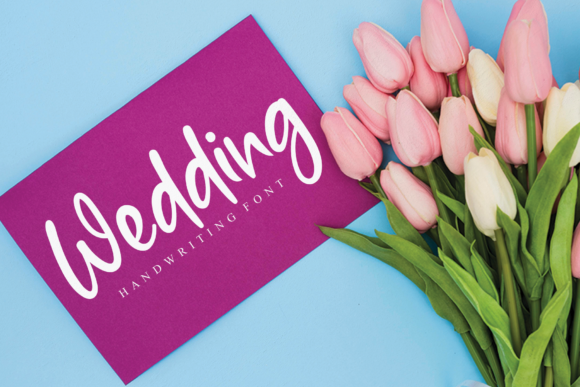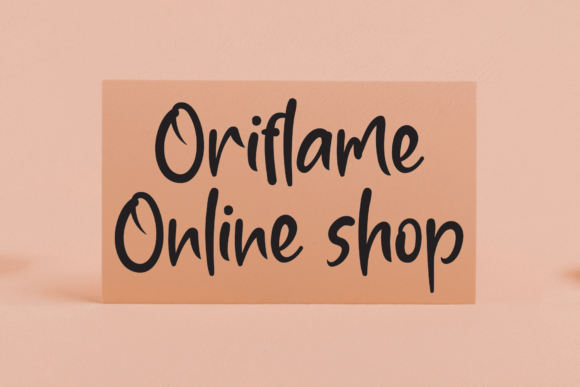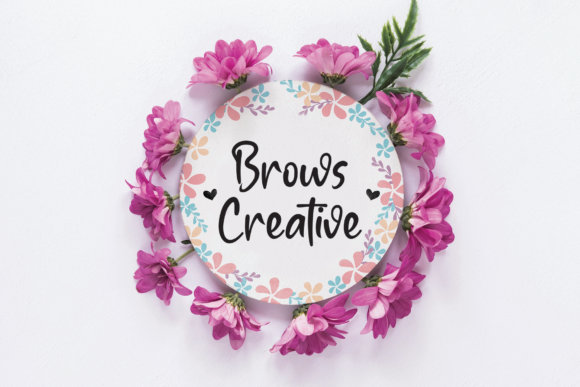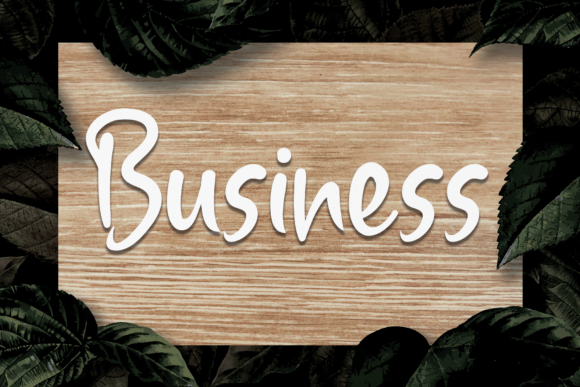
Christmas December Font: A Sweet and Round Lettered Handwritten Font
Are you looking for a font that can add a touch of warmth and coziness to your designs, especially during the holiday season? Look no further than the Christmas December Font. This sweet and round lettered handwritten font is perfect for designers and crafters who want to create beautiful and engaging projects.
What Makes Christmas December Font Special?
Christmas December Font is a unique and versatile font that was designed to enhance the beauty of your projects. Here are some of its key features:
- Balanced and Varied: This font is not too thin and not too thick, making it perfectly balanced and varied. This balance ensures that your text is easy to read and visually appealing.
- Sweet and Round Lettered: The font features sweet and round lettered designs that are sure to capture the hearts of your audience. The rounded edges give the font a friendly and approachable feel.
- Handwritten: The font has a handwritten feel that adds a personal touch to your designs. It’s perfect for creating holiday cards, invitations, and other festive materials.
Uses of Christmas December Font
Christmas December Font is a versatile font that can be used for a variety of design projects, including:
- Holiday Cards and Invitations: Create beautiful and festive holiday cards and invitations that will make your loved ones feel special.
- Christmas Decorations: Use the font to create stunning Christmas decorations, such as garlands, banners, and signs.
- Social Media Graphics: Add a touch of holiday cheer to your social media graphics, such as Facebook posts, Instagram stories, and Twitter headers.
- Digital Papers and Scrapbooking: Use the font to create digital papers and scrapbooking pages that are perfect for crafters and hobbyists.
Tips for Using Christmas December Font
Here are some tips for using Christmas December Font effectively:
- Pair it with Other Fonts: Experiment with pairing Christmas December Font with other fonts to create a unique and interesting look.
- Use it in Large and Small Sizes: The font is legible in both large and small sizes, making it perfect for headlines and body text.
- Add Colors and Patterns: Add some holiday cheer to your designs by using colors and patterns that match the Christmas theme.
Why Designers and Crafters Love Christmas December Font
Designers and crafters love Christmas December Font for several reasons:
- Easy to Read: The font is easy to read, making it perfect for body text and headlines.
- Versatile: The font can be used for a variety of design projects, from holiday cards to social media graphics.
- Unique: The font has a unique and distinctive look that sets it apart from other fonts.
Christmas December Font is a sweet and round lettered handwritten font that’s perfect for designers and crafters who want to add a touch of holiday cheer to their designs. With its balanced and varied design, this font is sure to enhance the beauty of your projects. Whether you’re creating holiday cards, social media graphics, or digital papers, Christmas December Font is a great choice.